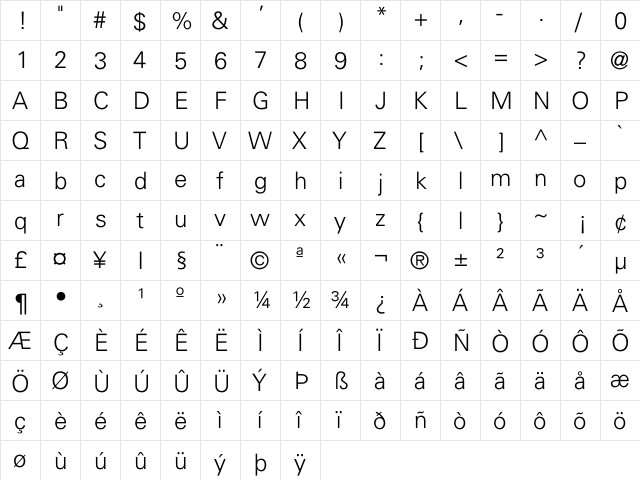
BPG Ingiri Light
| Foundry | BPG-InfoTech |
| Designer | BPG-InfoTech |
Design Context for BPG Ingiri Typeface
BPG Ingiri offers clean, dependable letterforms without strong stylistic allegiance, making it a practical choice for designers who need flexibility. The delicate stroke weight brings airiness and refinement to layouts.